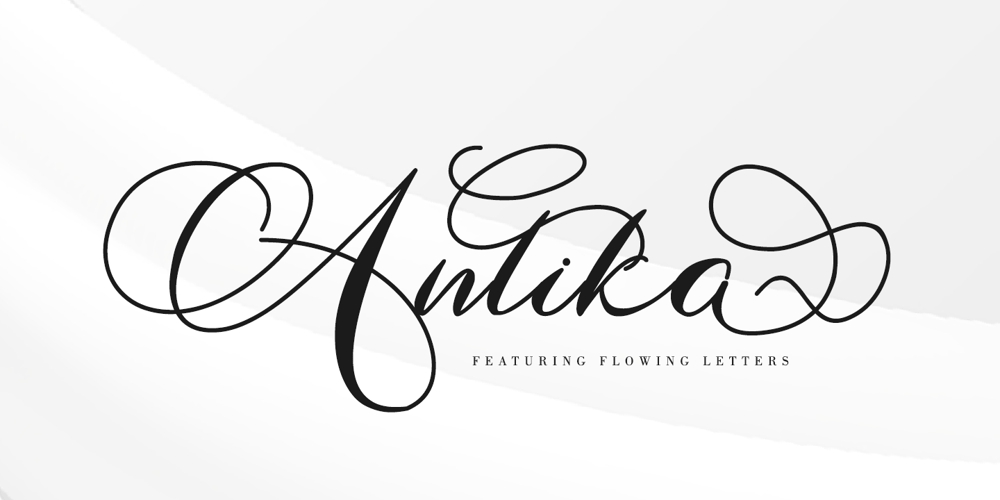
Antika Font Family was designed by Thomas Aradea and published by Letterara. Antika contains 2 styles and family package options. Antika is a beautiful modern script font featuring flowing letters. It will add a romantic touch to any crafting project!